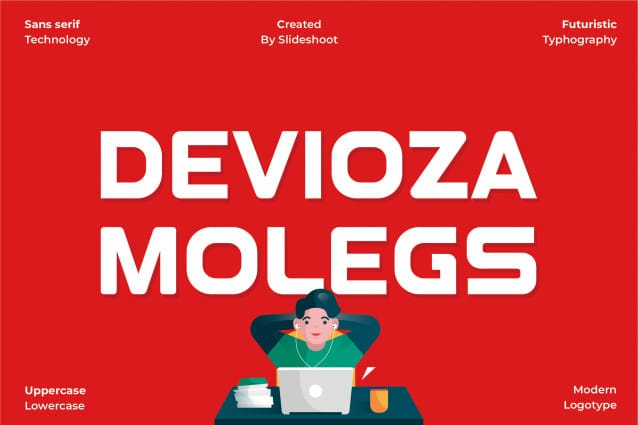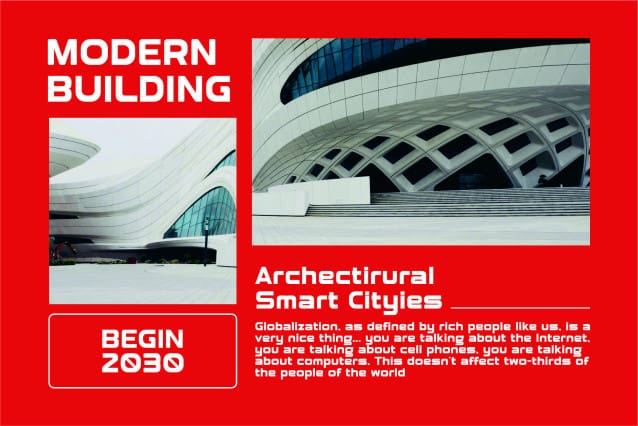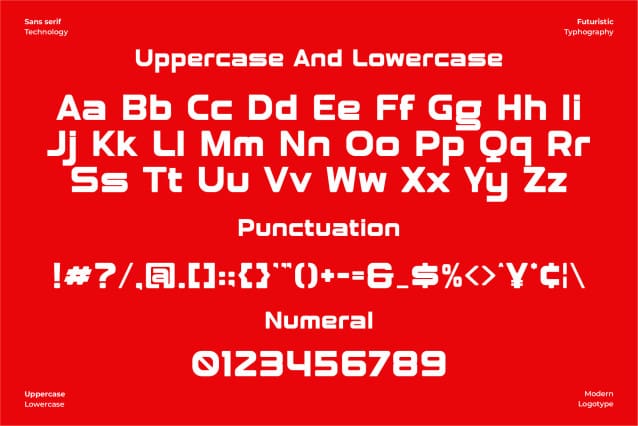
Davioza Molegs Font
Davioza Molegs is a bold modern serif font, trendy, bouncy and cute display font. It has a unique character with wood theme. It is perfect to be combined with invitation card designs, company logos, movie titles, movie names, business cards, book titles, brand names and various other designs.
Designer Name: SlideShoot